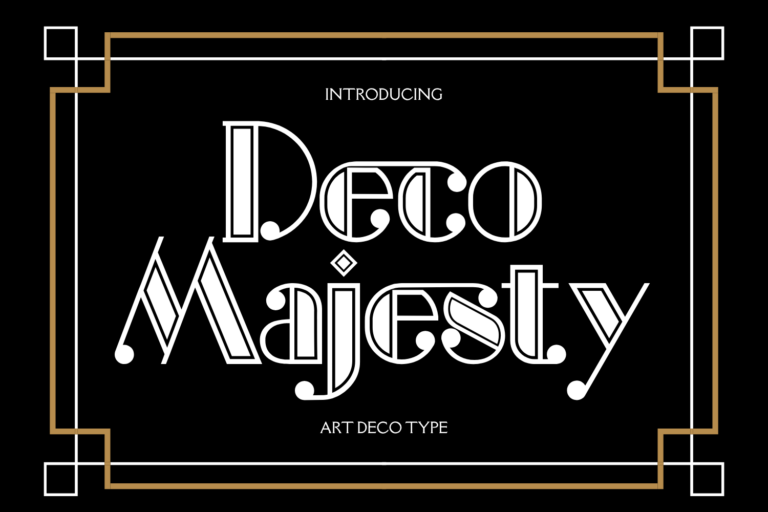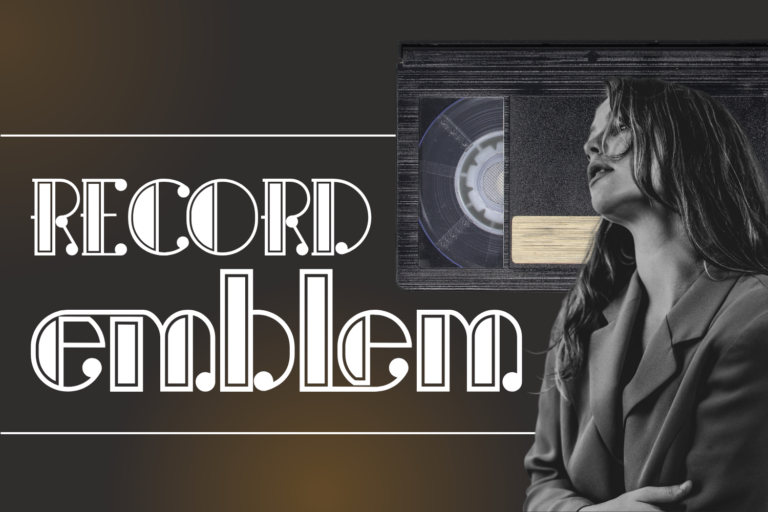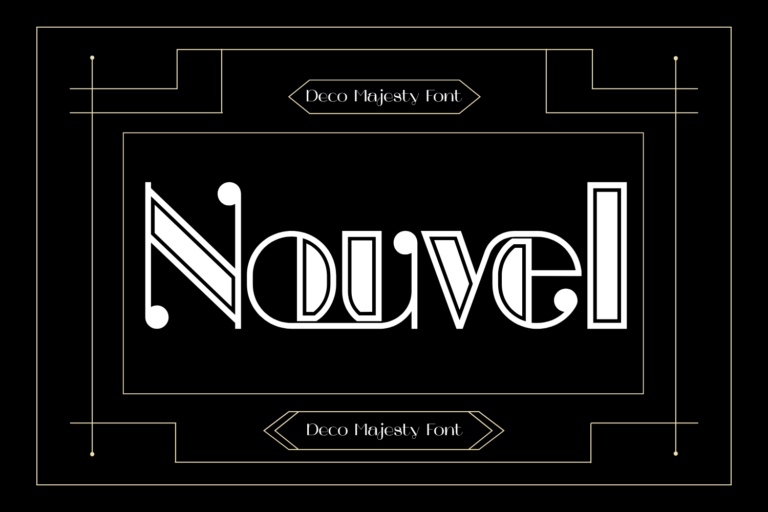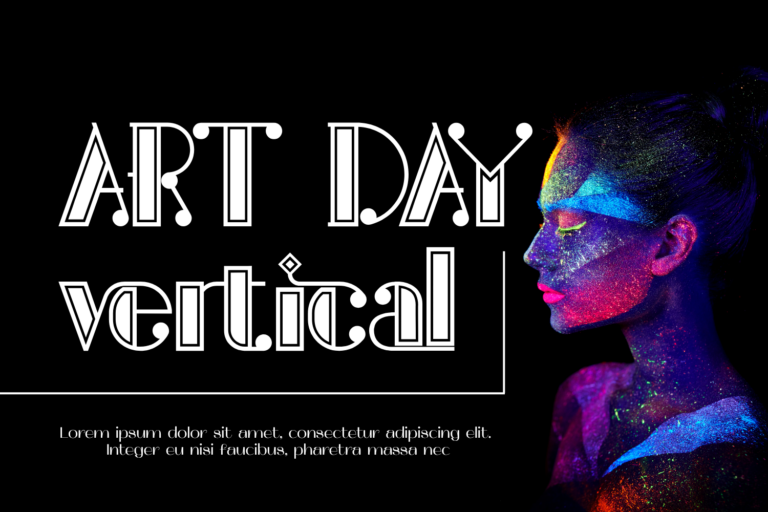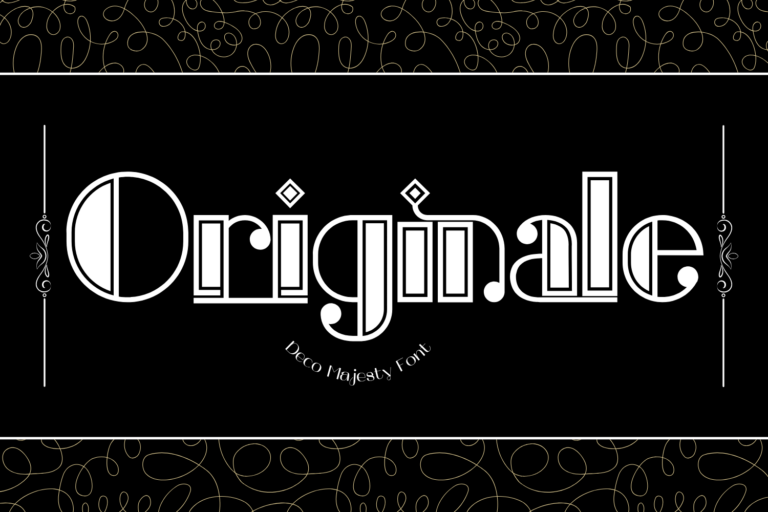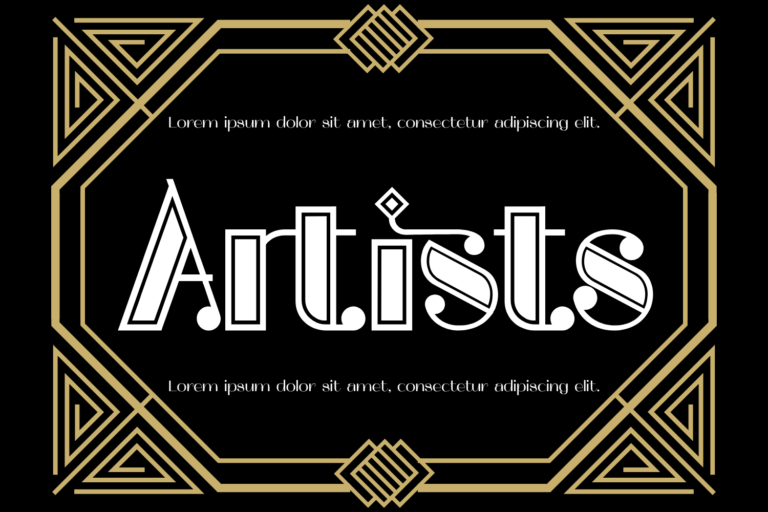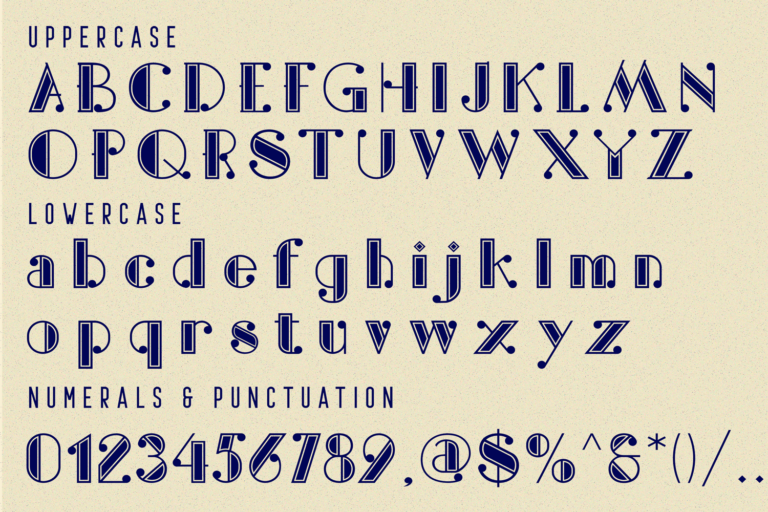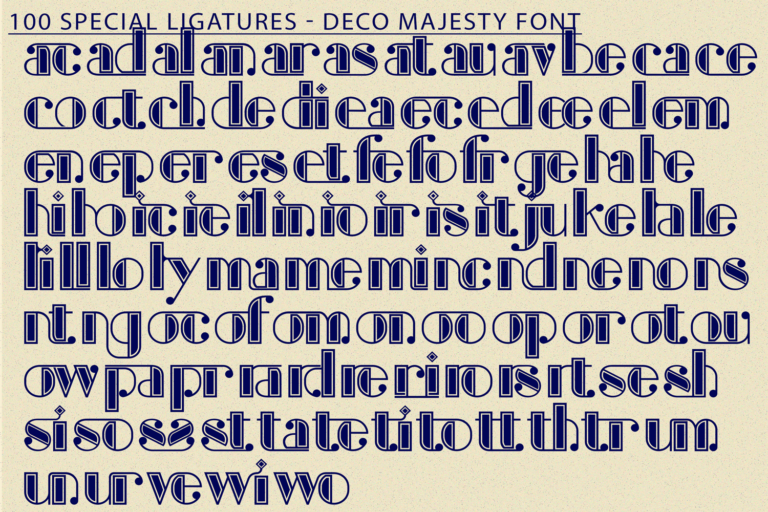
Deco Majesty Font is a luxurious Art Deco-inspired display typeface that blends geometric structure with refined elegance. Featuring bold vertical contrast, symmetrical terminals, and ornamental ball-end details, this font evokes a timeless sophistication reminiscent of 1920s architecture, classic cinema, and vintage fashion. Each letterform is carefully crafted to balance decorative flair with readability, making it perfect for high-end branding, editorial headlines, luxury packaging, or vintage-themed designs.
Font Features:
• Full Uppercase & Lowercase Set
• 100+ Elegant Ligatures & Alternates
• Numerals & Complete Punctuation Set
• Multilingual Accented Characters
• Designed for headlines, logos, posters, book covers, fashion labels, and wedding stationery
ac ad al an ar as at au av be ca ce ch co ct de di ea ec ed ee el em en ep er es et fe fo fr ge ha he hi ho ie ic il in io ir is it ju ke la le li ll lo ly ma me mi nc nd ne ng no nt ns oc of om on oo op or ot ou ow pa pr ra rd re ri ro rs rt se sh si so ss st ta te th ti to tr tt um un ur ve wi wo
Deco Majesty Font